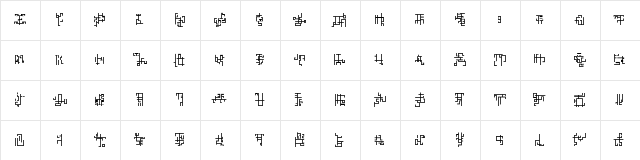
Cybertech Regular
| Designer | middernacht |
Design Context for Cybertech Typeface
Cybertech channels digital-age aesthetics through its sharp, structured letterforms — ideal for brands that want to signal innovation.
Pro Tip: Use Cybertech in combination with a neutral sans for body text. Let it define the brand voice in headlines while keeping reading comfortable elsewhere.